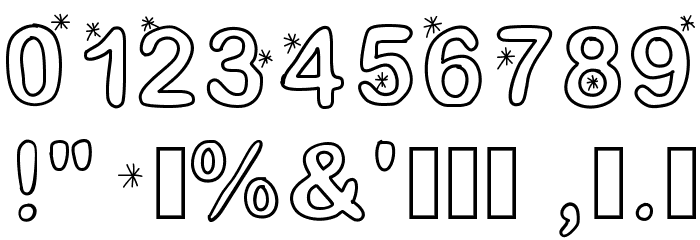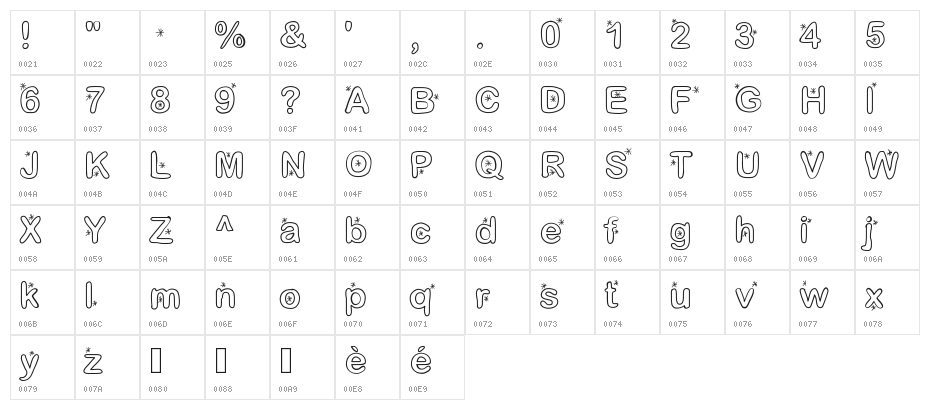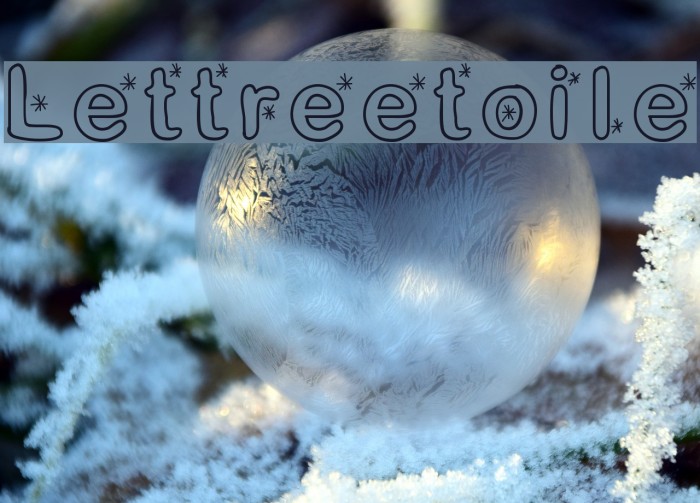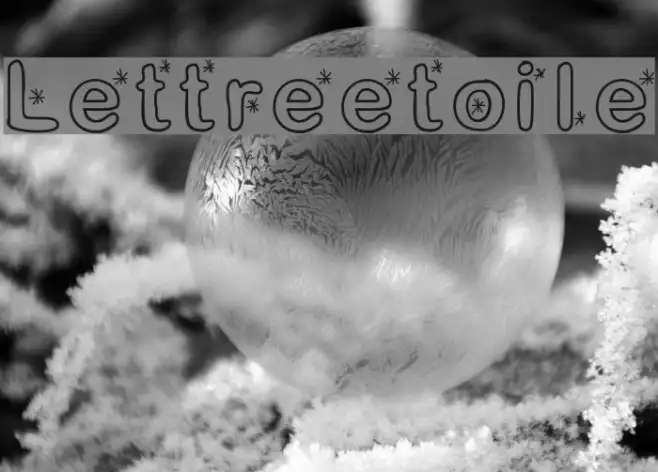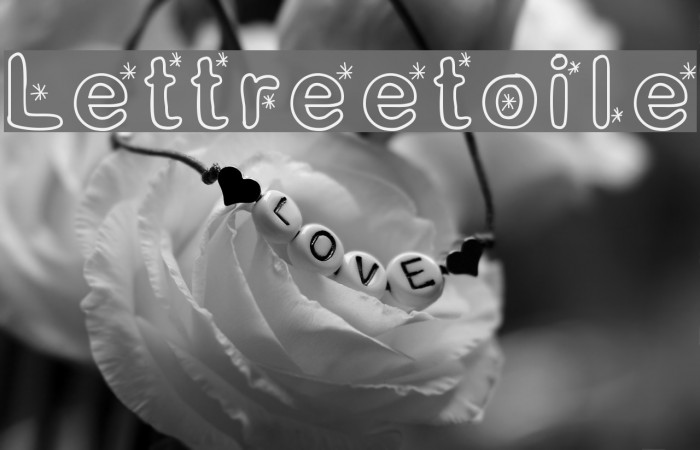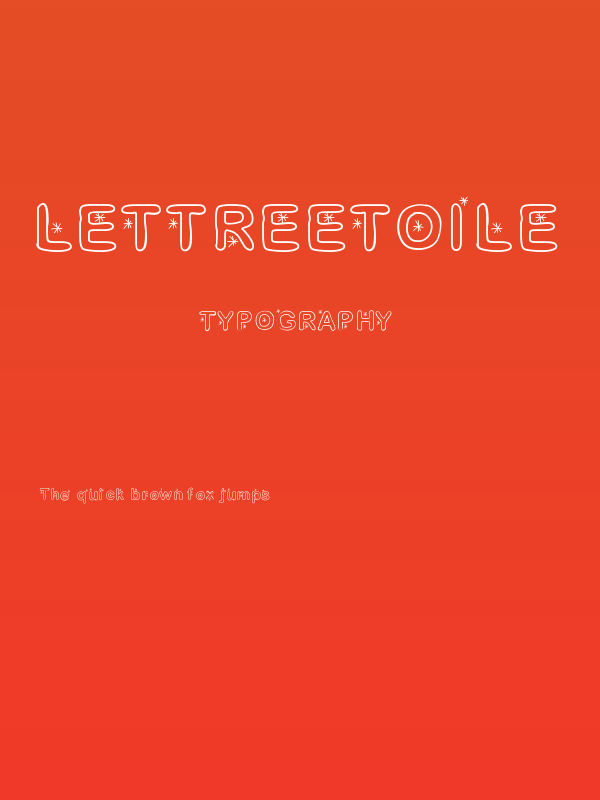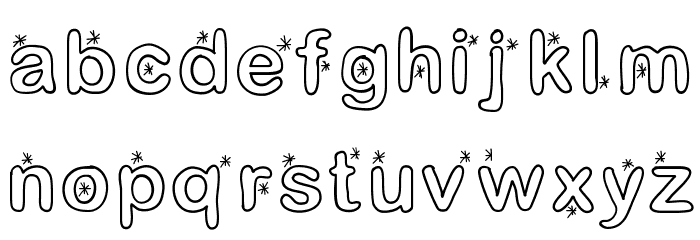
Lettreetoile Font
Lettreetoile Description
This playful and whimsical font features a unique design where each character is adorned with small star-like asterisks. The letters are outlined, giving them a hollow appearance that adds to their charm. The overall style is casual and fun, making it ideal for projects that require a touch of creativity and imagination. The font maintains a consistent thickness throughout, with rounded edges that enhance its friendly and approachable look. The spacing between characters is normal, ensuring readability while maintaining its decorative appeal.
| Proposed Projects | Ideal for children's books, greeting cards, playful branding, and party invitations. |